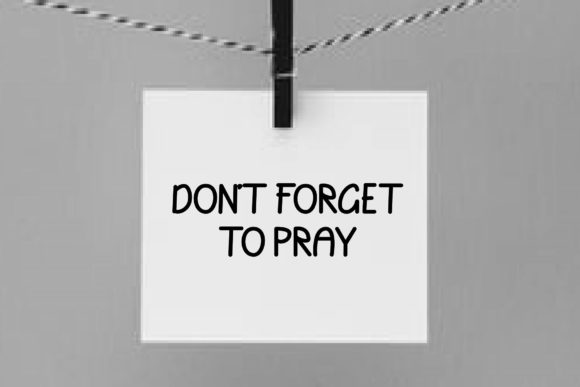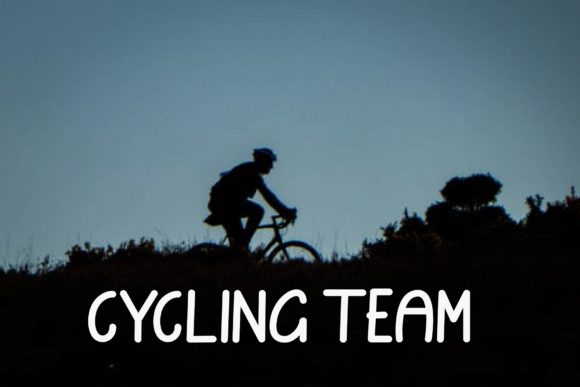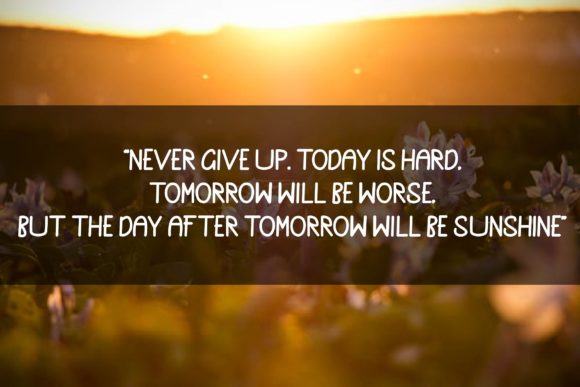
Introduction to Nobar Font
As a designer, you’ve probably had that moment where you’re staring at a blank canvas, waiting for inspiration to strike. The cursor blinks impatiently, and your mind starts racing with ideas. It’s in these moments that the perfect font can make all the difference. That’s where Nobar Font comes in – a stunning monoline display font designed to elevate your designs and leave a lasting impression.
Whether you’re working on branding, product packaging, or creating eye-catching posters, Nobar Font is the ultimate design resource. Its high-quality, elegant lines make it perfect for any creative project, from quotes to t-shirts, and labels. The best part? It’s available for a free download, allowing you to experiment with it in your next design project. With Nobar Font, you can take your designs to the next level and make them truly stand out.
Key Features of Nobar Font
- Transparent background, making it easy to layer and manipulate the font in graphic design software.
- Perfect for digital projects, with a high-resolution design that ensures crisp and clear text at any size or resolution.
- Designed to be versatile, with a wide range of applications, from branding and logos to editorial and publishing content.
Honest Review: Nobar Font
I recently stumbled upon the Nobar Font and I’m excited to share my thoughts on this design resource. With a growing collection of fonts, the internet has made it easier than ever to find the perfect match for your creative project.
- High-quality design: The Nobar Font boasts a sleek, modern aesthetic that’s perfect for a variety of projects, from logos to website headers.
- Transparent background: The font’s transparent background allows for seamless integration with your design, giving you complete creative control.
- ⚠️ Limited character set: While the font is versatile, it may not include all the characters you need for your project.
Overall, I’m impressed with the Nobar Font. Its high-quality design, free download, and transparent background make it a valuable addition to any designer’s toolkit. However, its limitations should be taken into consideration when choosing this font for your project. ✨
Nobar Font
Tips for Getting the Most Out of Nobar Font
Experiment with different font sizes, colors, and combinations to create unique and visually appealing designs. Use the font’s transparent background to create depth and dimension in your designs.
Nobar Font is ideal for a variety of creative projects, including: branding, marketing materials, social media graphics, presentations, and documents. Its versatility and high-quality design make it a valuable resource for designers and non-designers alike.